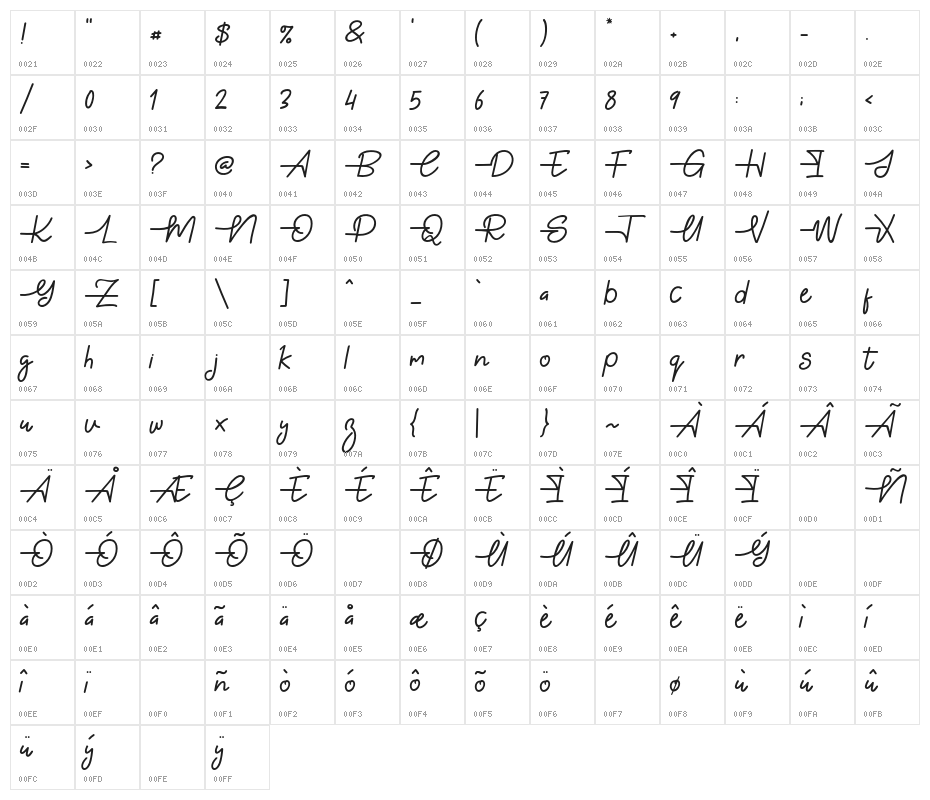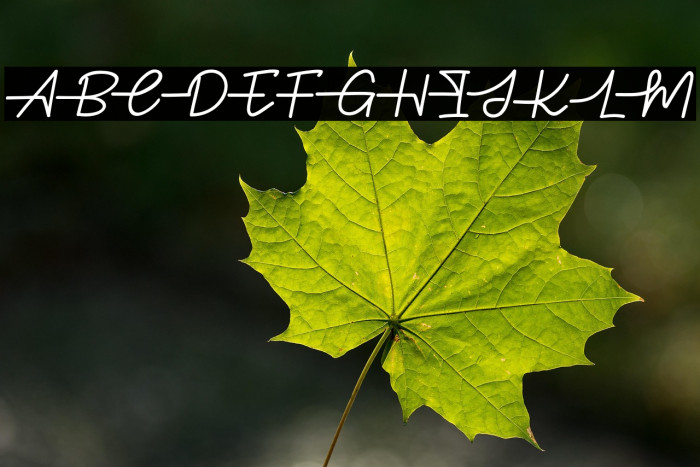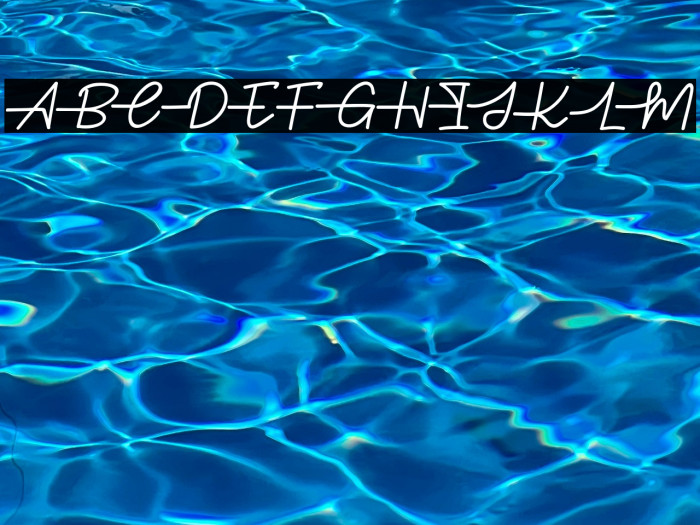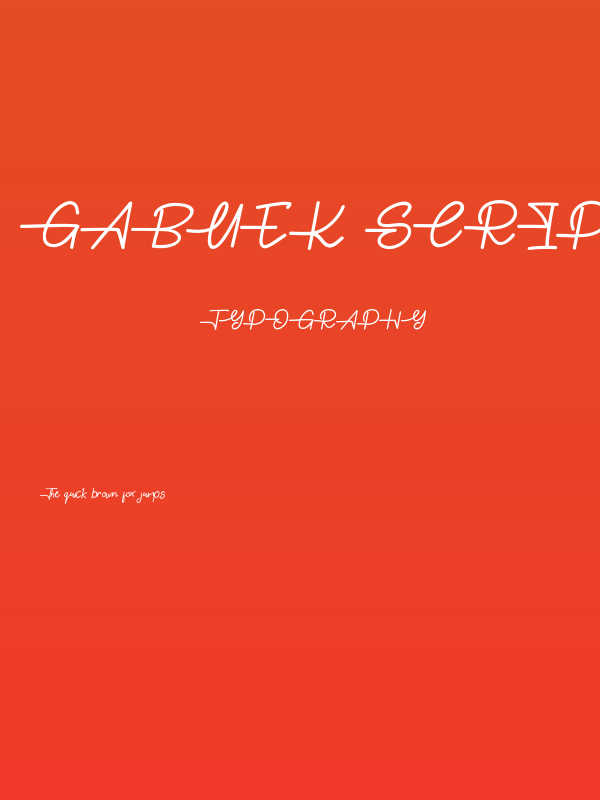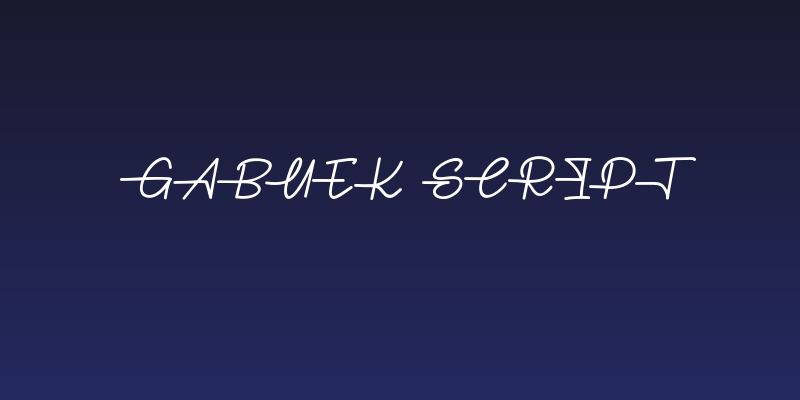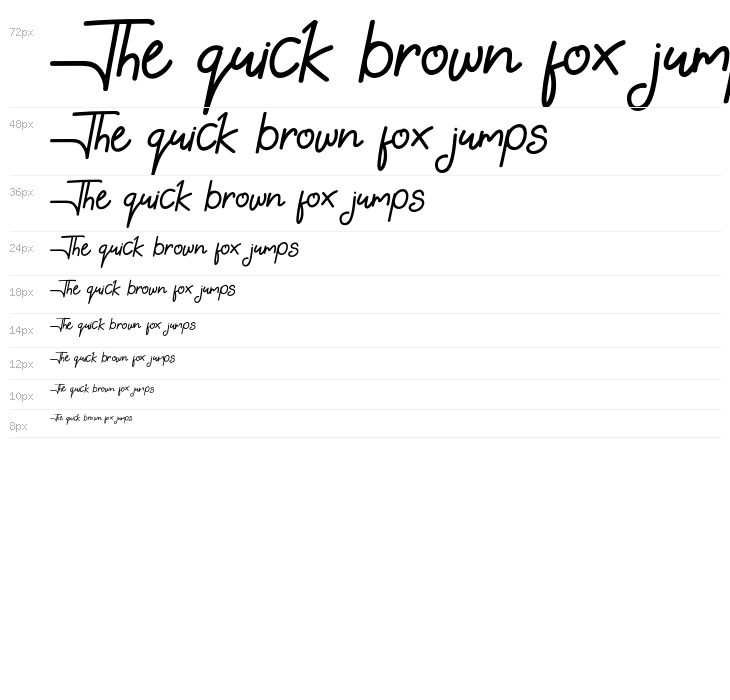
Gabuek Script Font
Gabuek Script Description
This font features a lively and flowing script style, characterized by its elegant and connected letterforms. The uppercase letters are distinct with a slight slant, while the lowercase letters maintain a consistent fluidity, enhancing the handwritten appearance. The numerals are clear and legible, matching the overall script style. Special characters are well-integrated, maintaining the font's cohesive look. The font's design is suitable for projects that require a personal touch, such as invitations, greeting cards, or branding materials.
| Proposed Projects | Ideal for invitations, greeting cards, branding, and personal projects. |